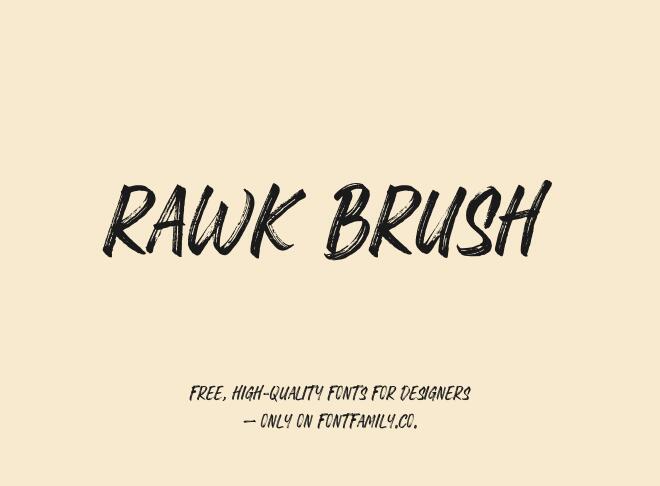
Rawk Brush Font
Rawk Brush Font is a dynamic, playful typeface with a unique brush style. Designed by Rawk Design Studio, this font captures the spirit of spontaneous creativity, making it perfect for designs that require a hand-drawn or artisanal touch. Its bold strokes and varying thicknesses give it a raw, rustic appeal, reminiscent of retro signage and graffiti art. Comparatively, Rawk Brush Font stands out from other brush fonts with its distinctive character and lively energy. It's ideal for use in logos, posters, apparel designs, and other creative projects. Its free-flowing nature also makes it a great choice for music album covers or event posters. Enjoy the versatility and expressive potential of Rawk Brush Font in your design projects.